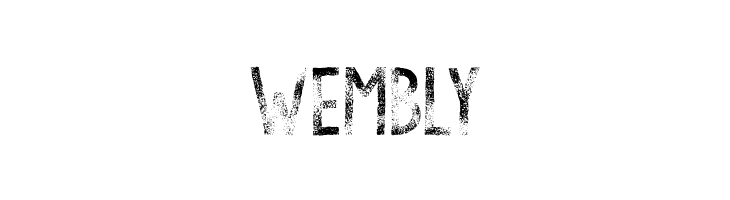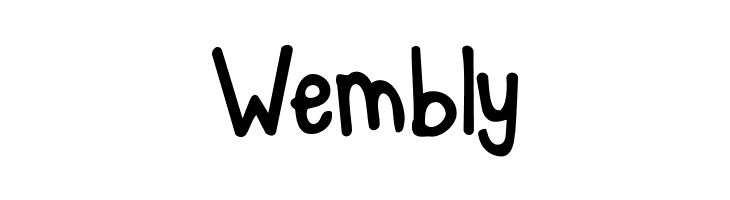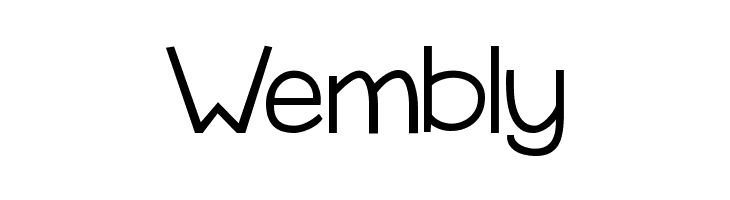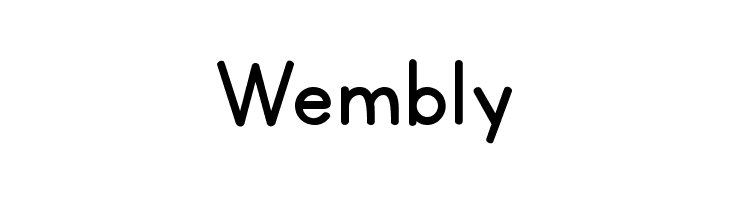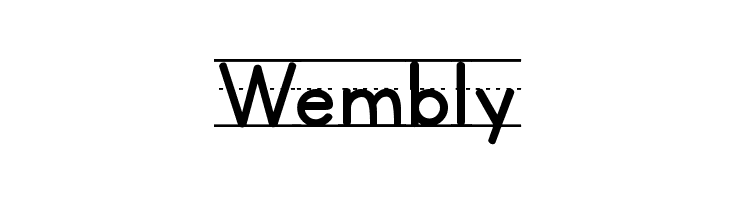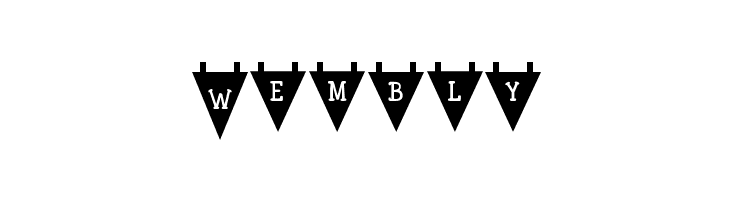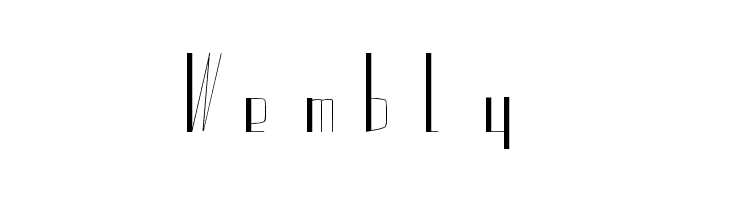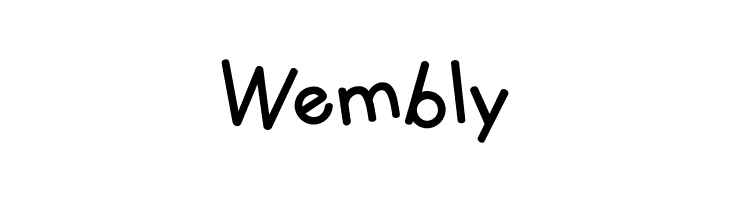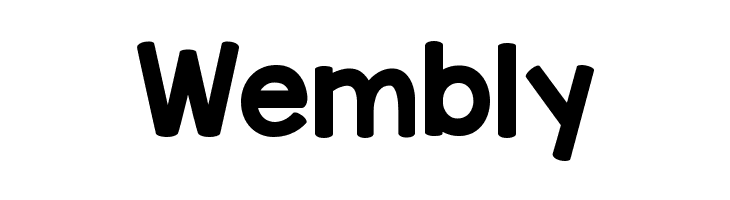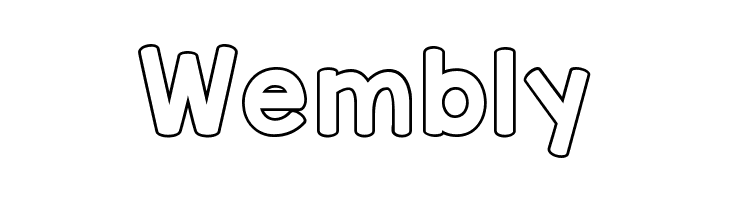
KG Shake it Off Popped Font
Font by www.kimberlygeswein.com - Kimberly Geswein
A playful, outlined font with a hand-drawn, whimsical style.
KG Shark in the Water Font
Font by www.kimberlygeswein.com - Kimberly Geswein
A lively, handwritten font with a playful and informal style.
KG Shark in the Water Bold Font
Font by www.kimberlygeswein.com - Kimberly Geswein
A bold, playful handwritten font with a casual and friendly style.
KG She Paints Me Blue Font
Font by www.kimberlygeswein.com - Kimberly Geswein
A playful, handwritten font with smooth curves and a whimsical style.
KG She Persisted Font
Designed by Kimberly Geswein and has been downloaded 14,485 times.
A playful, hand-drawn font with bold, irregular strokes and a whimsical style.
KG Shelter Me Font
Font by www.kimberlygeswein.com - Kimberly Geswein
A playful, handwritten font with dynamic and irregular strokes.
KG Shining Like Stars Font
Font by www.kimberlygeswein.com - Kimberly Geswein
A playful, handwritten font with a whimsical and informal style.
KG Simply the Best Font
Font by Kimberly Geswein
Playful handwritten font with rounded edges.
KG SKELETON Font
Katz Fontz - katzfonts.50megs.com/kg.html
A Halloween-themed decorative font with skulls and bats integrated into the characters.
KG Skinny Latte Font
Font by www.kimberlygeswein.com - Kimberly Geswein
A tall, slender font with a modern and elegant style.
KG Skinny Love Font
Font by www.kimberlygeswein.com - Kimberly Geswein
A playful, hand-drawn font with a textured, sketch-like appearance.
KG Small Town Southern Girl Font
Font by www.kimberlygeswein.com - Kimberly Geswein
A playful, casual handwritten font with rounded, consistent strokes.
KG SNOWANGEL Font
Katz Fontz - katzfonts.50megs.com/kg.html
A festive serif font with integrated snowmen, perfect for holiday designs.
KG SNOWMAN2 Font
A whimsical font with snowman-themed characters, perfect for festive designs.
KG So High School Normal Font
Font by Kimberly Geswein
A playful, handwritten font with rounded, smooth letterforms.
KG So It Goes Font
Font by Kimberly Geswein
A playful, casual handwritten font with smooth curves and balanced contrast.
KG Soggy Kitten Font
Font by www.kimberlygeswein.com - Kimberly Geswein
KG Soli Deo Gloria Font
Font by www.kimberlygeswein.com - Kimberly Geswein
A dynamic and flowing script font with elegant, interconnected strokes.
KG Somebody That I Used to Know Font
Font by www.kimberlygeswein.com - Kimberly Geswein